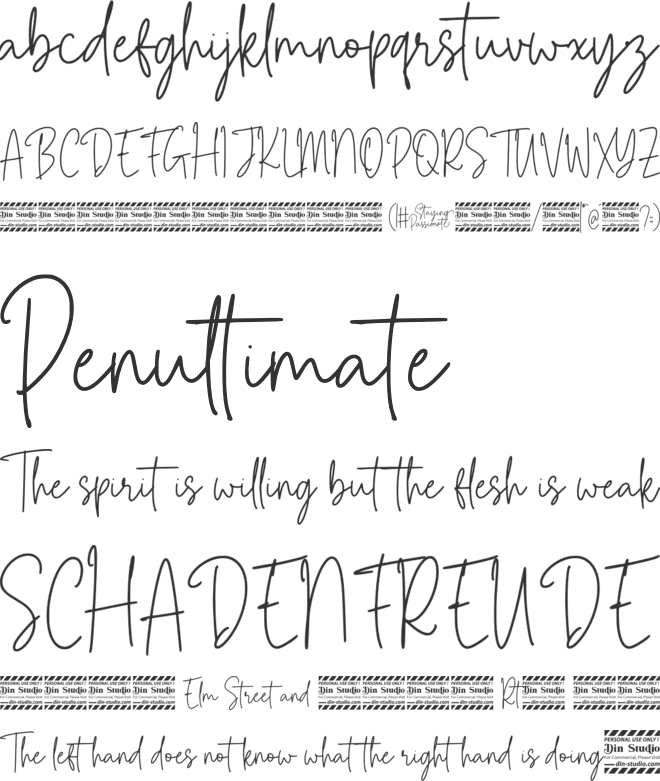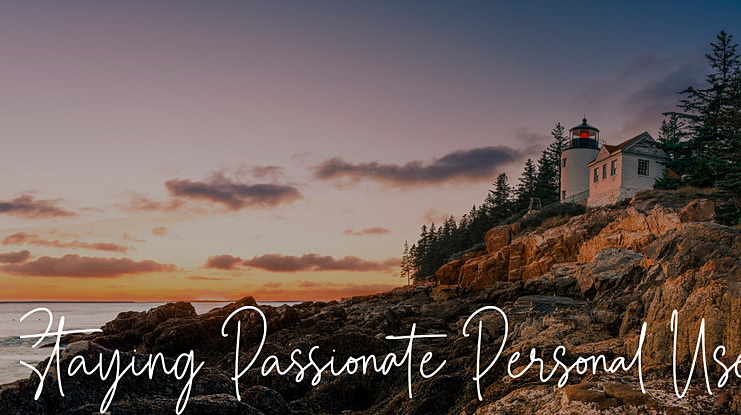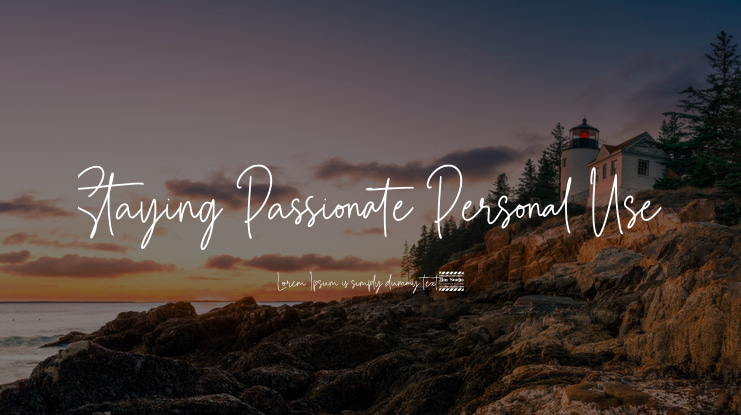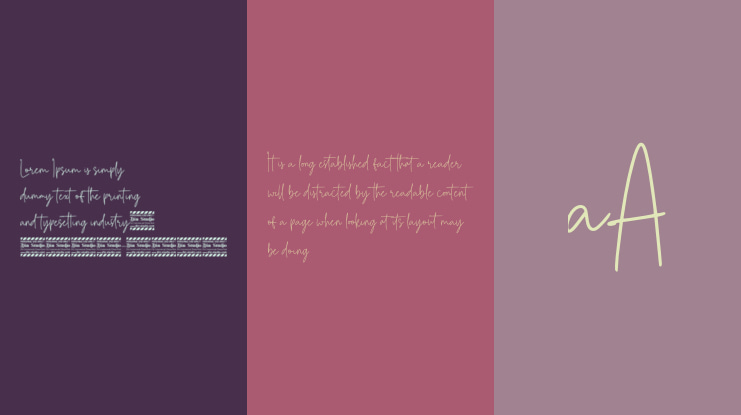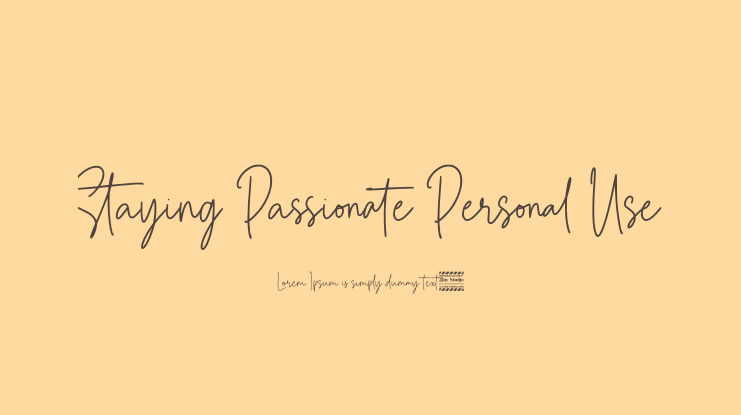
Staying Passionate – A Script Font
A beautifully handcrafted font that’ll make your guests sing and elevate your projects! Every stroke, and curve was created to entice happiness and elegance. Use it to create standout headings, promote your online sales, Instagram quotes, and even printed materials like business cards, t-shirts, or invitations.